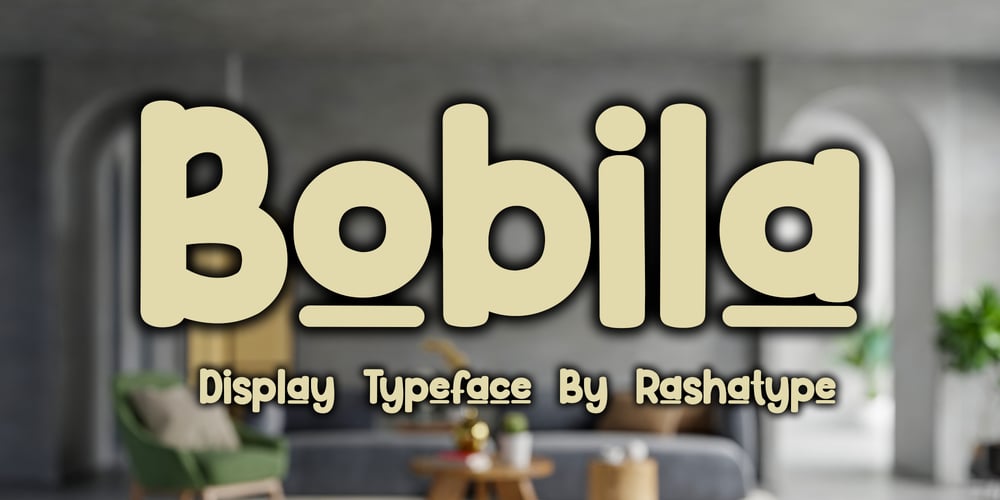
Bobila Font Family was designed by Endri Sulistyawan and published by Rashatype. Bobila contains 1 styles and family package options. Bobila is a cool and casual display font. It will look stunning on any poster flyer or print.Use this font for your designs and explore its endless possibilities.